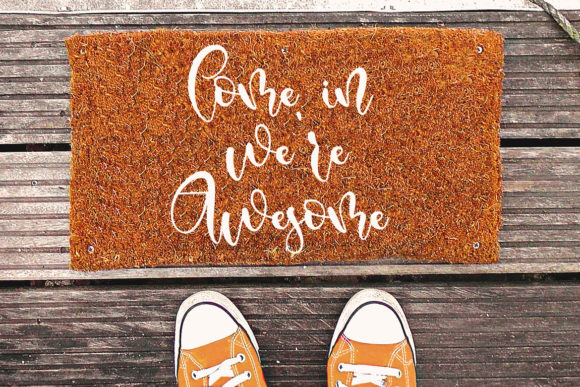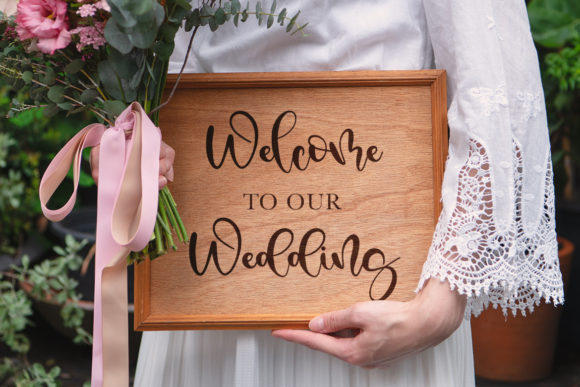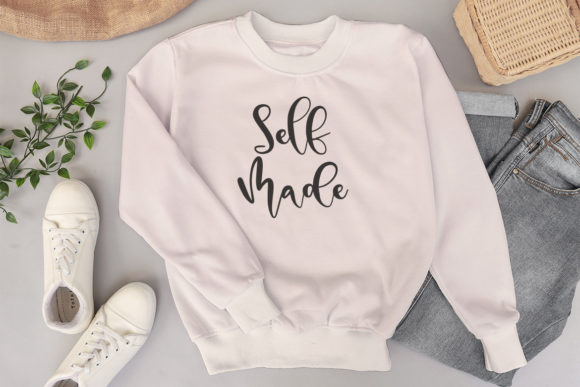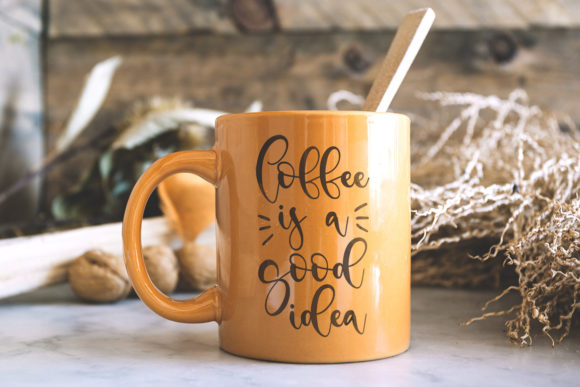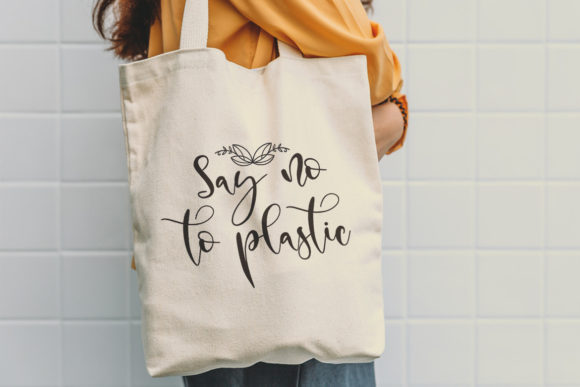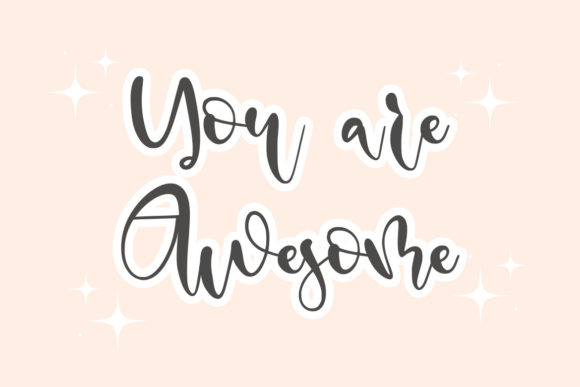
The Quest for the Perfect Font: Discovering Angelica
I still remember the time I was working on a wedding invitation project, and I just couldn’t seem to find the right font. My client wanted something elegant and stylish, but not too over-the-top. I spent hours scouring the internet, trying out different fonts, but nothing seemed quite right. That was until I stumbled upon Angelica, a beautiful handwritten font that stole my heart. In this article, I’ll share my love for Angelica, its features, and how to make the most of it in your designs.
An Honest Review of Angelica
What I Love About Angelica ✨
- ✅ Elegant and stylish handwritten design
- ✅ Perfect for wedding invitations, thank you cards, and greeting cards
- ✅ Highly customizable with OpenType features and glyphs
- ✅ Works beautifully on logos, business cards, and quotes
- ⚠️ Some users may find the font a bit too ornate for certain projects
- ⚠️ Limited availability of certain characters and glyphs in non-OpenType compatible software
The Story Behind Angelica
Angelica was designed by a team of typographers who wanted to create a font that would evoke the elegance and sophistication of handwritten calligraphy. Inspired by traditional copperplate engraving, Angelica features beautiful swashes and flourishes that add a touch of luxury to any design.
| Font Name | Angelica Font |
| Author | Fallengraphic |
| What is the best use for Angelica? | Angelica is perfect for wedding invitations, thank you cards, quotes, greeting cards, logos, business cards, and any other design that needs a customized touch. |
| Does Angelica support OpenType features? | Yes, Angelica supports OpenType features, including glyphs, swashes, and stylistic alternates. |